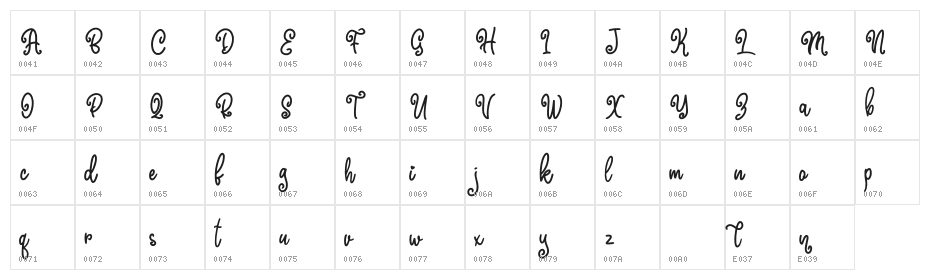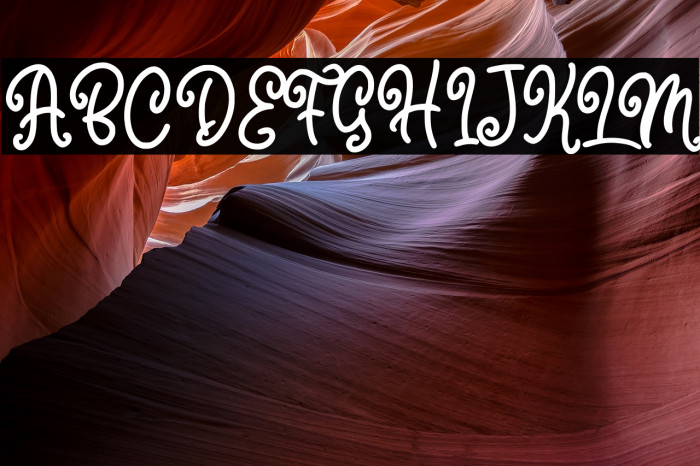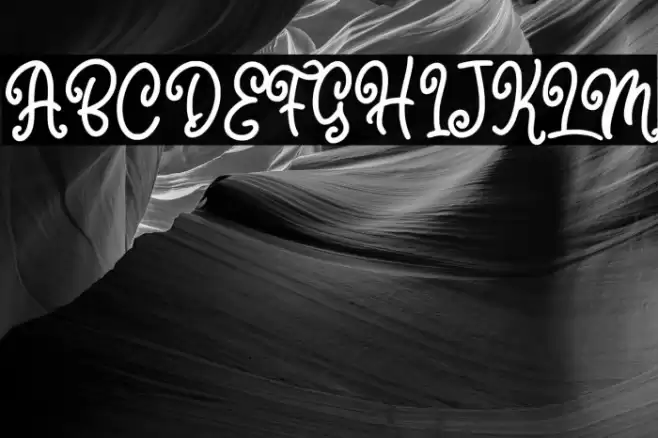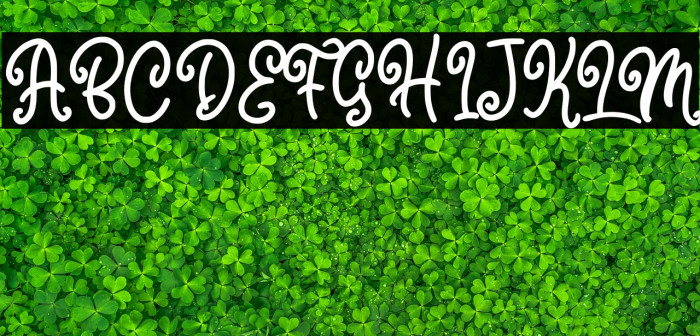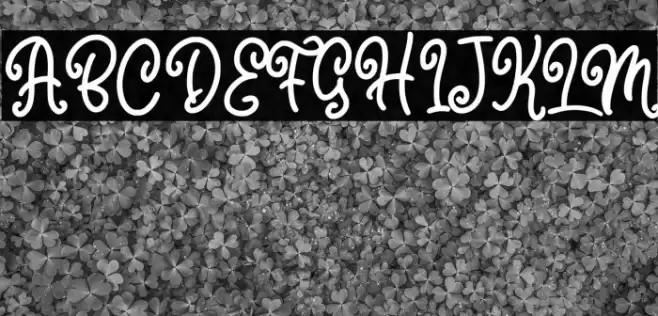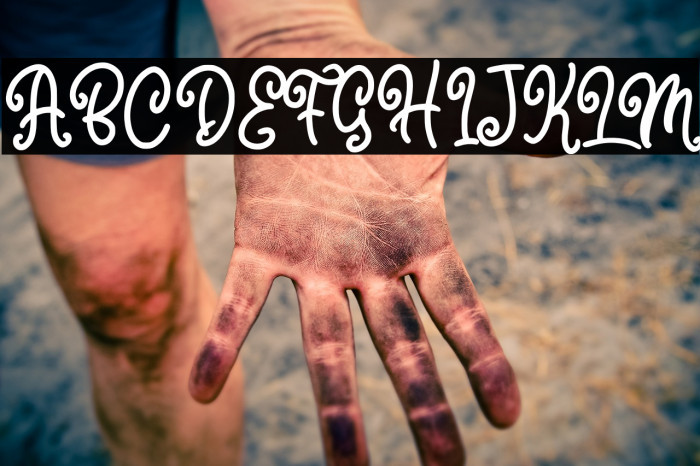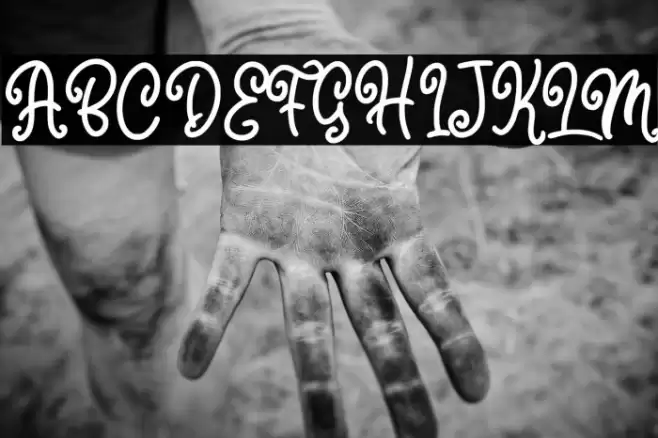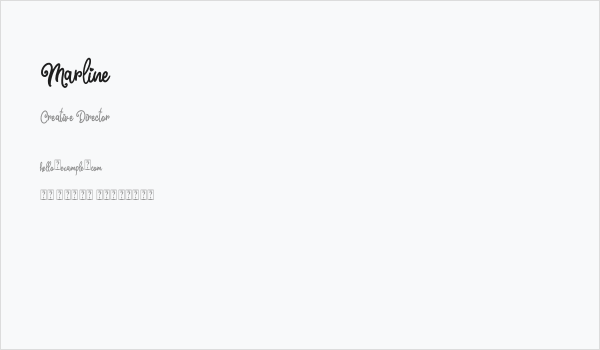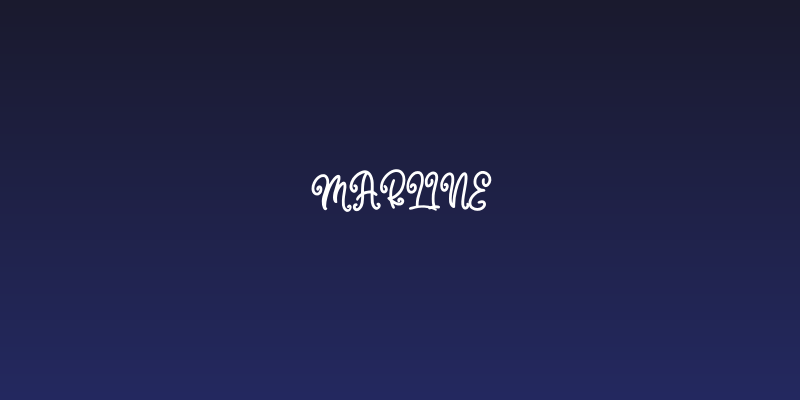
Marline Font
Marline Description
This font features a playful and whimsical script style with a handwritten appearance. The uppercase letters are characterized by their flowing, cursive forms with elegant loops and swirls, giving them a dynamic and lively feel. The lowercase letters maintain a consistent style, with smooth curves and a slightly informal touch, enhancing the font's approachable and friendly nature. The numerals are designed to match the overall aesthetic, with rounded edges and a balanced structure. The special characters are crafted with the same attention to detail, ensuring they blend seamlessly with the rest of the font. This font's unique charm makes it suitable for projects that require a personal and creative touch.
| Proposed Projects | Ideal for greeting cards, invitations, branding, and creative design projects. |